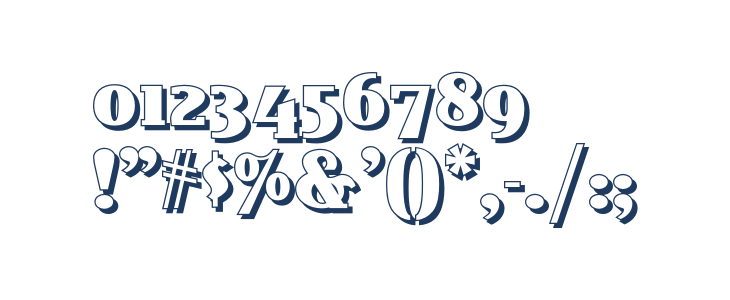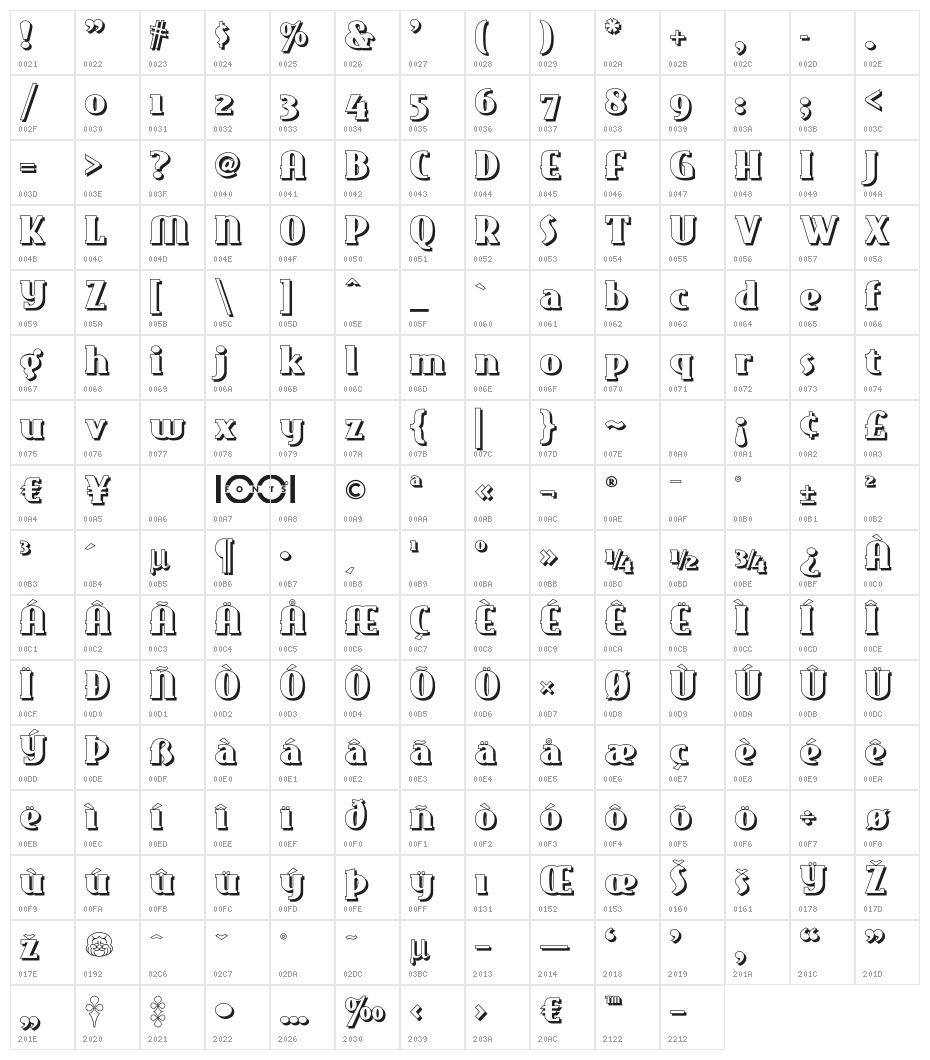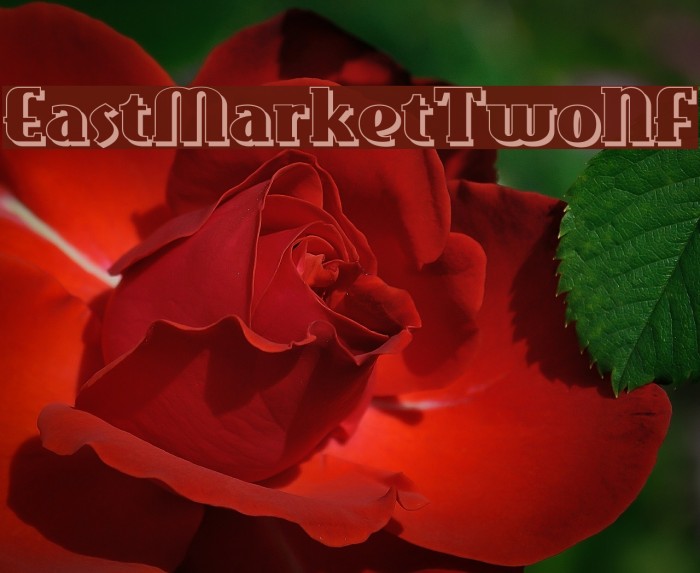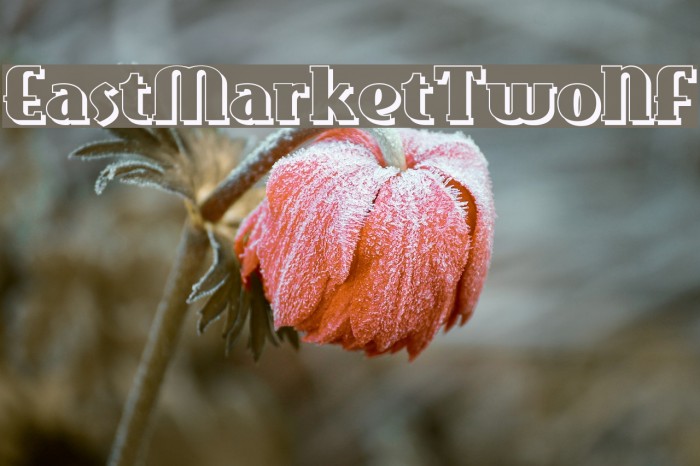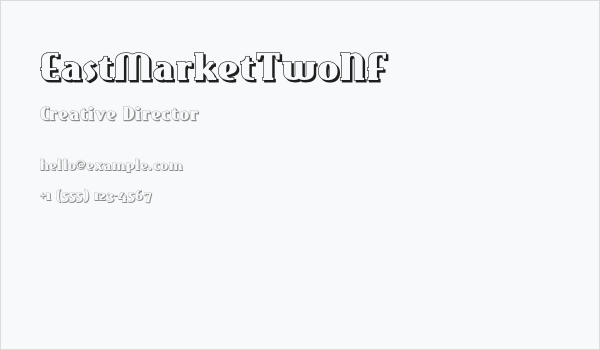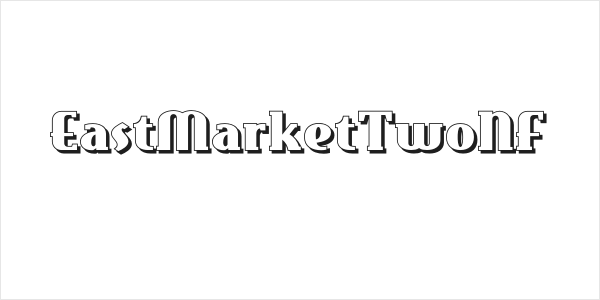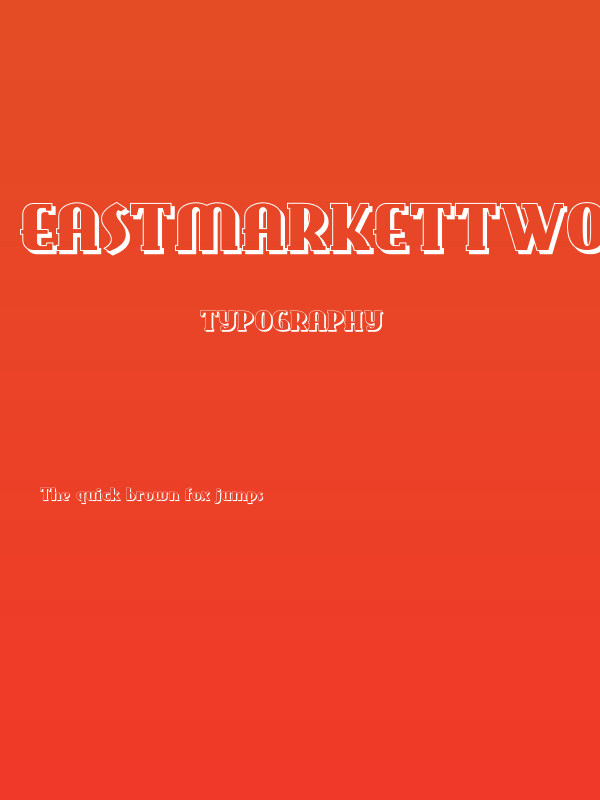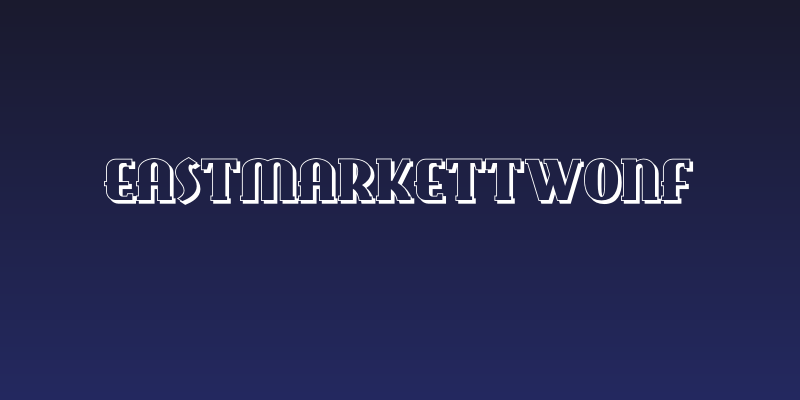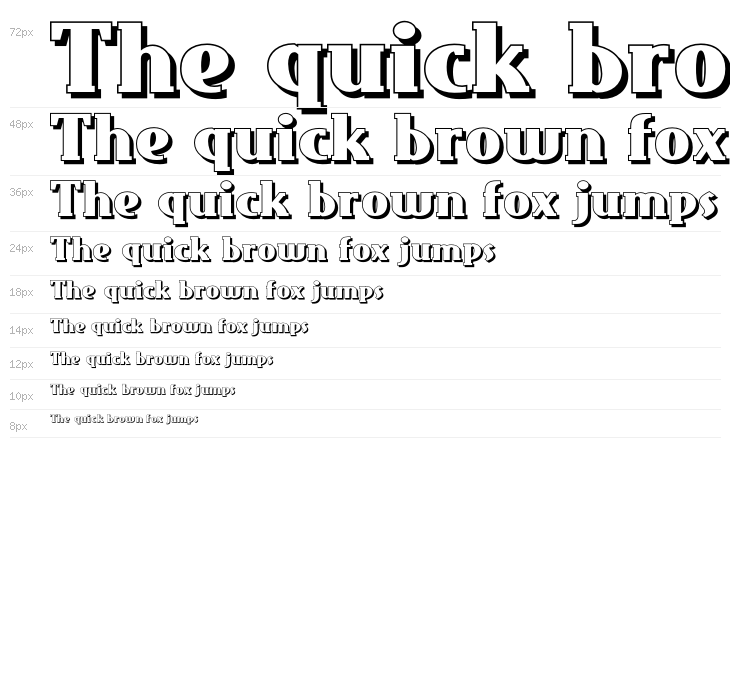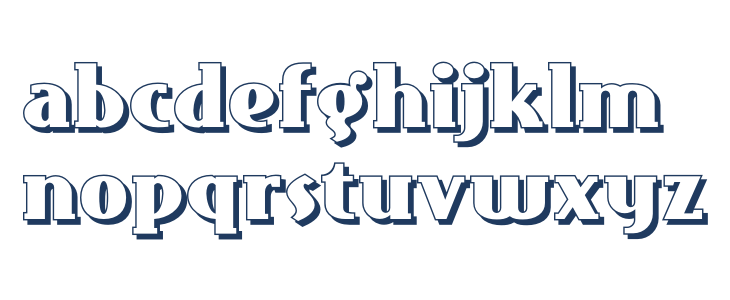
EastMarketTwoNF Font
EastMarketTwoNF Description
This font features a bold and striking design with a three-dimensional effect that gives it a unique, shadowed appearance. The characters are crafted with strong, thick lines and a distinct outline that enhances their visibility and impact. The uppercase and lowercase letters maintain a consistent style, with rounded edges and a slightly condensed form that adds to their boldness. The numerals and special characters follow the same design principles, ensuring uniformity across all glyphs. This font's dramatic style makes it ideal for creating eye-catching headlines and titles.